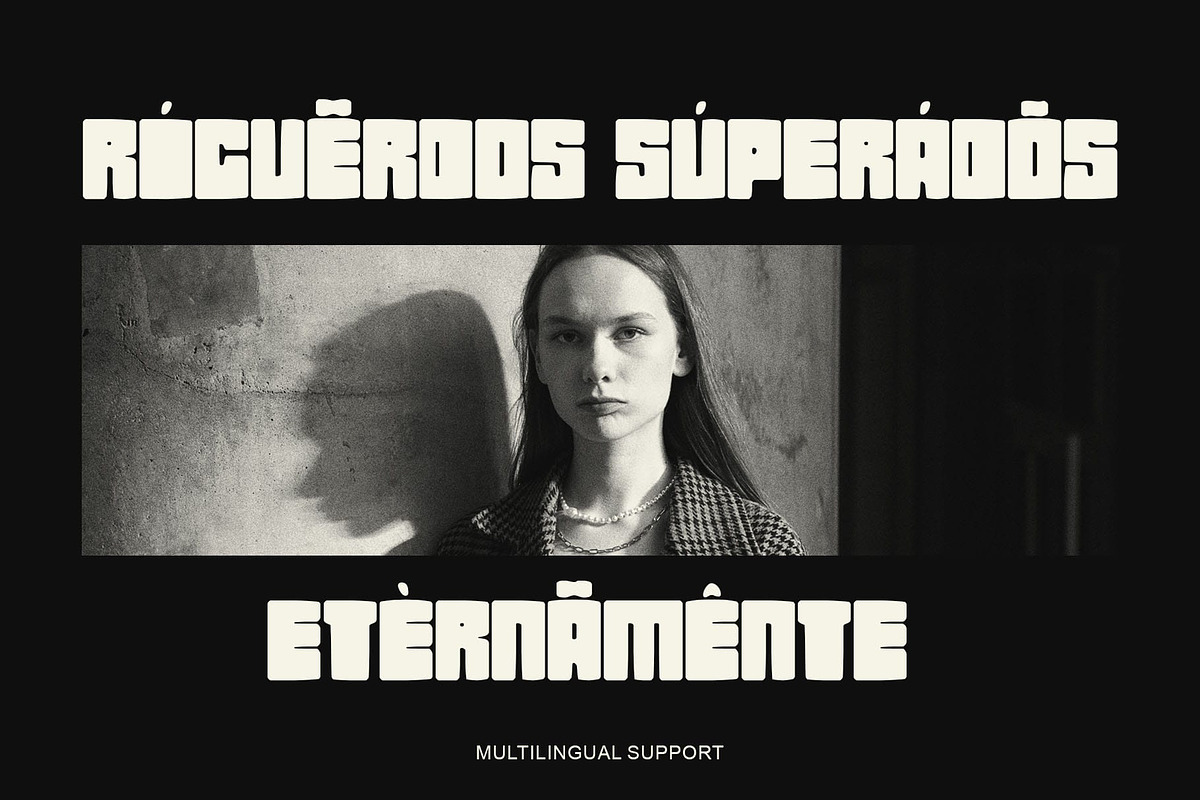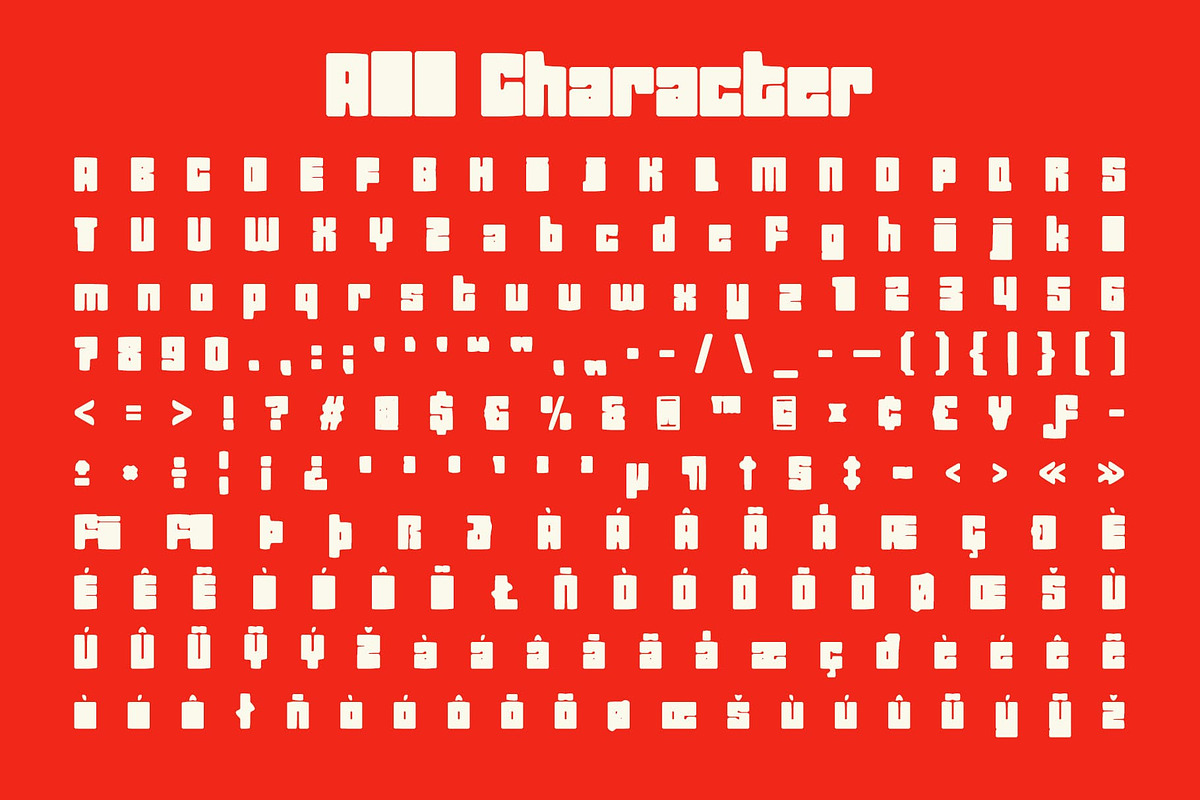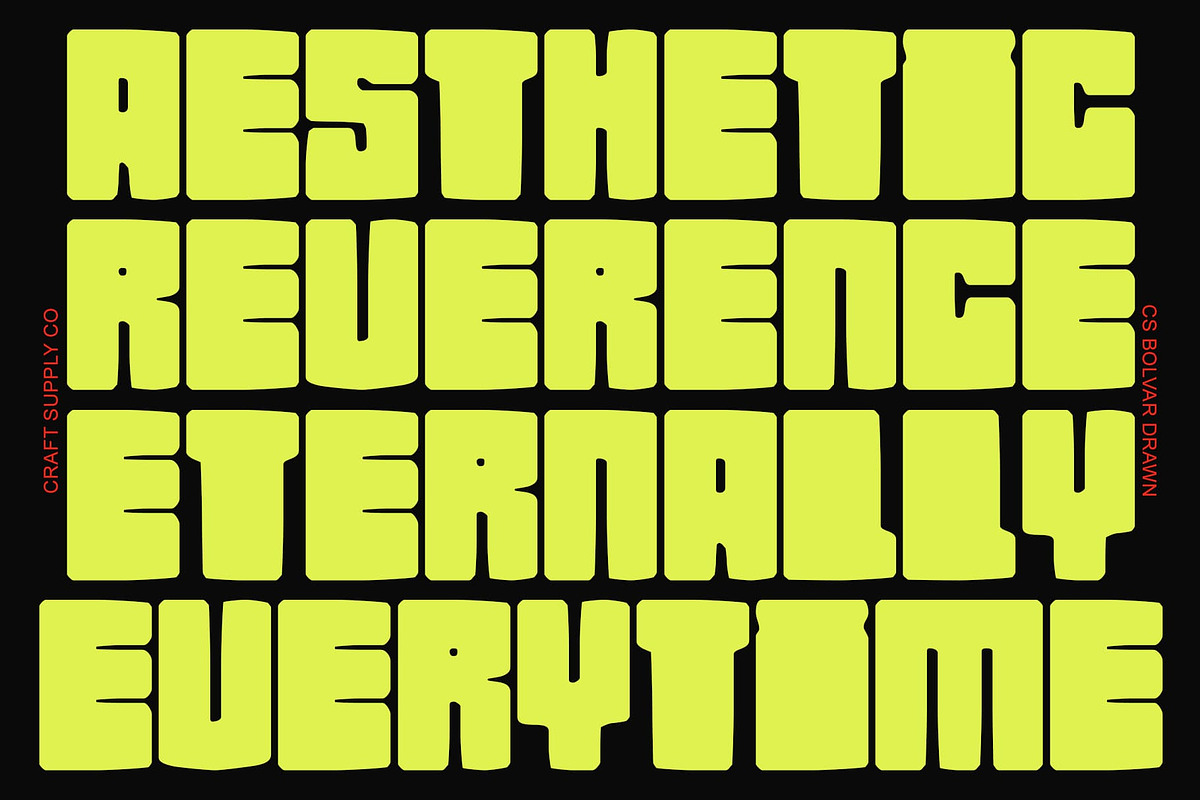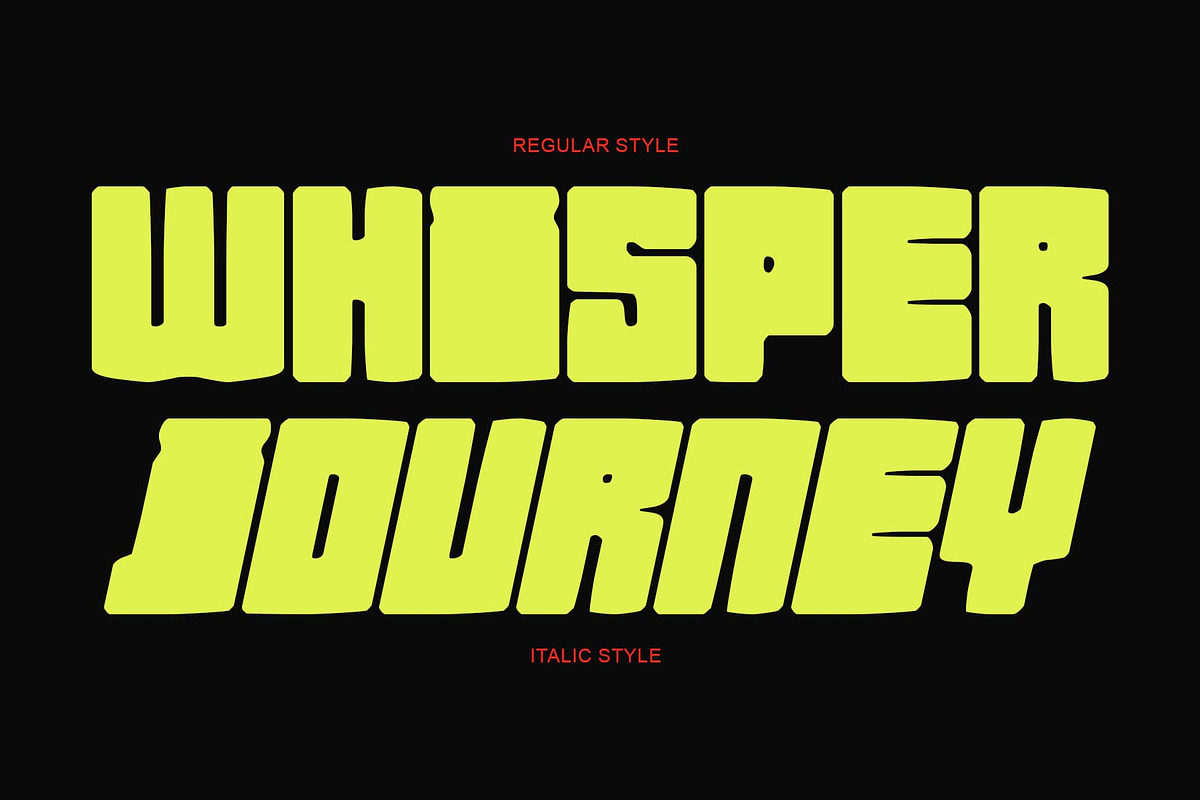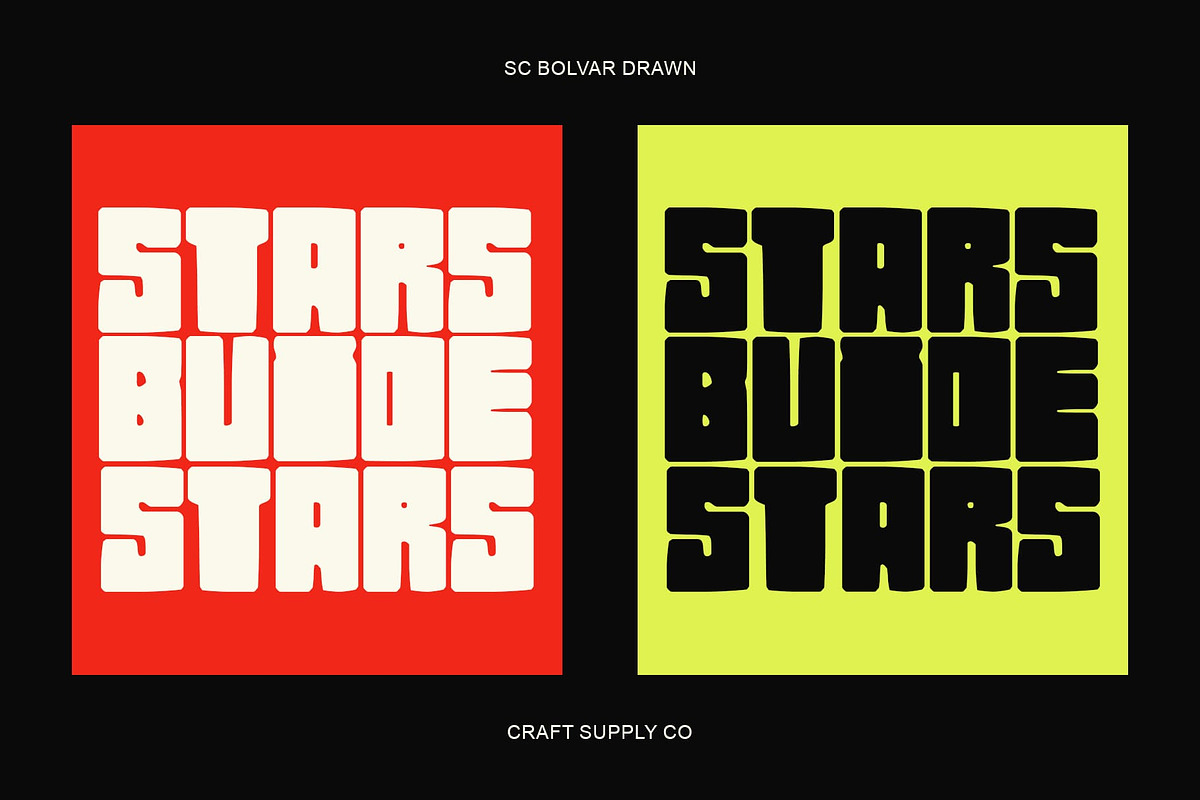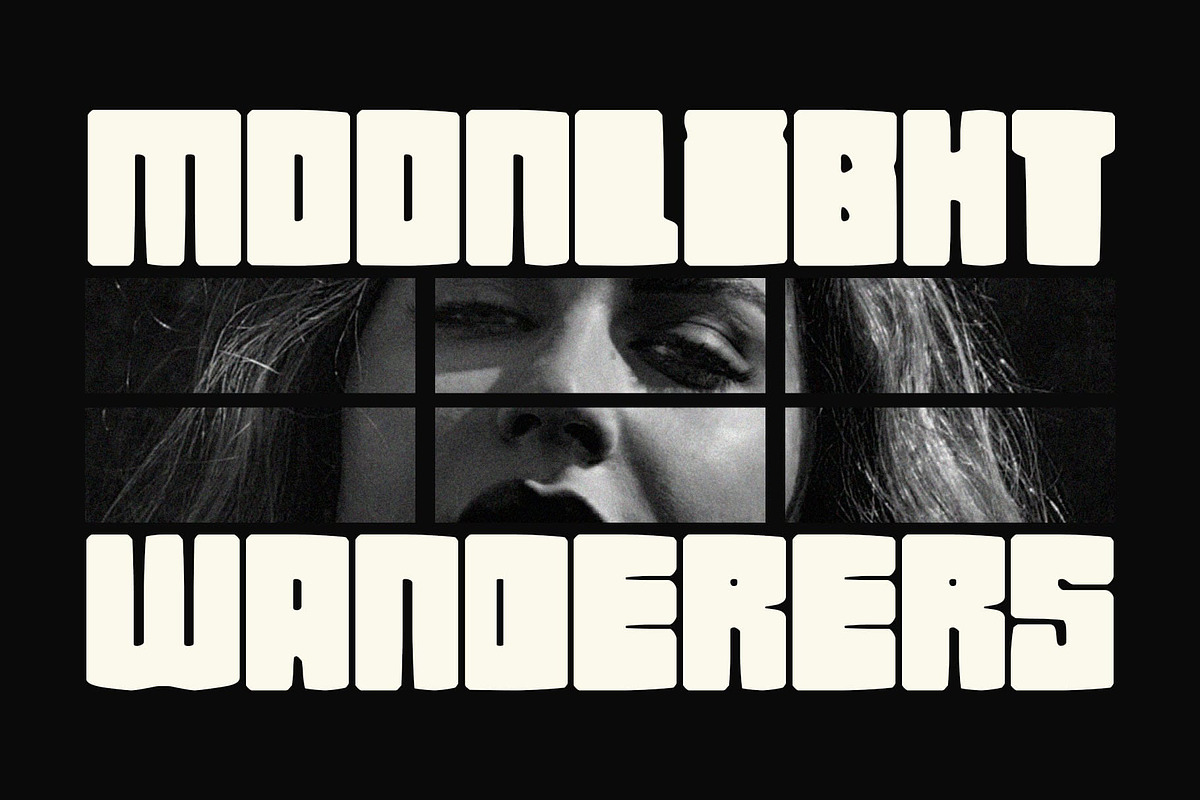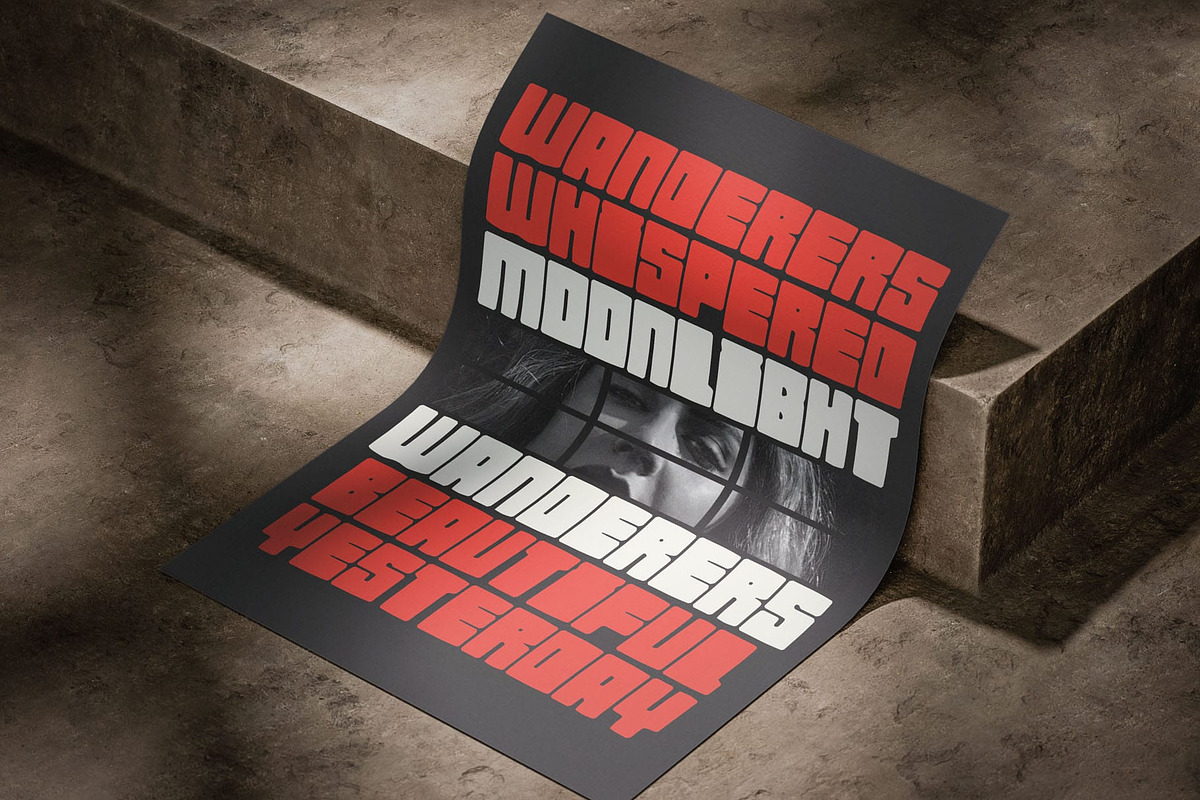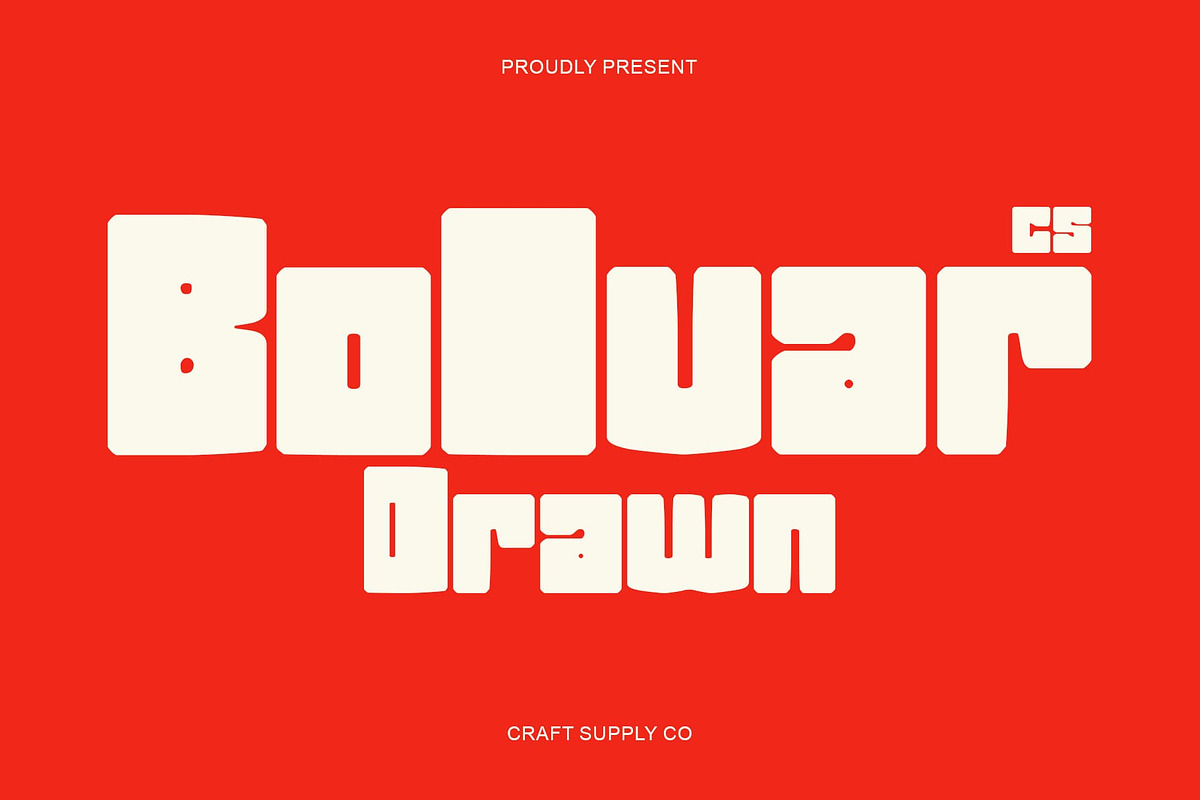
CS Bolvar Drawn
CS Bolvar Drawn – Bold Power with a Condensed Edge
Bold Font with Commanding Presence This is a bold font that radiates confidence and strength. With its powerful weight and assertive stance, it demands attention in any setting. Each letter is crafted to project authority and impact, making it a perfect choice for designs that need to make a bold, unforgettable statement.
Condensed Form for a Strong, Boxy Look Featuring a condensed structure, this font maximizes space while enhancing visual intensity. Its boxy proportions and tight spacing give it a sturdy, compact feel that communicates strength and precision. The result is a design that feels both solid and modern, ideal for compositions that thrive on visual dominance.
Defined Shapes for Clear Communication The clean edges and geometric consistency of this font ensure clarity even in bold layouts. Its balance between heavy weight and structured form makes it perfect for impactful typography, where legibility and personality go hand in hand.
Perfect for Powerful and Impactful Design From movie titles and posters to bold headlines and branding, this font excels wherever visual impact is key. Its strong, boxy construction and commanding tone make it the ideal font for designers who want to express confidence, power, and modern strength in every word.
- CS Bolvar Drawn Regular
- CS Bolvar Drawn Italic